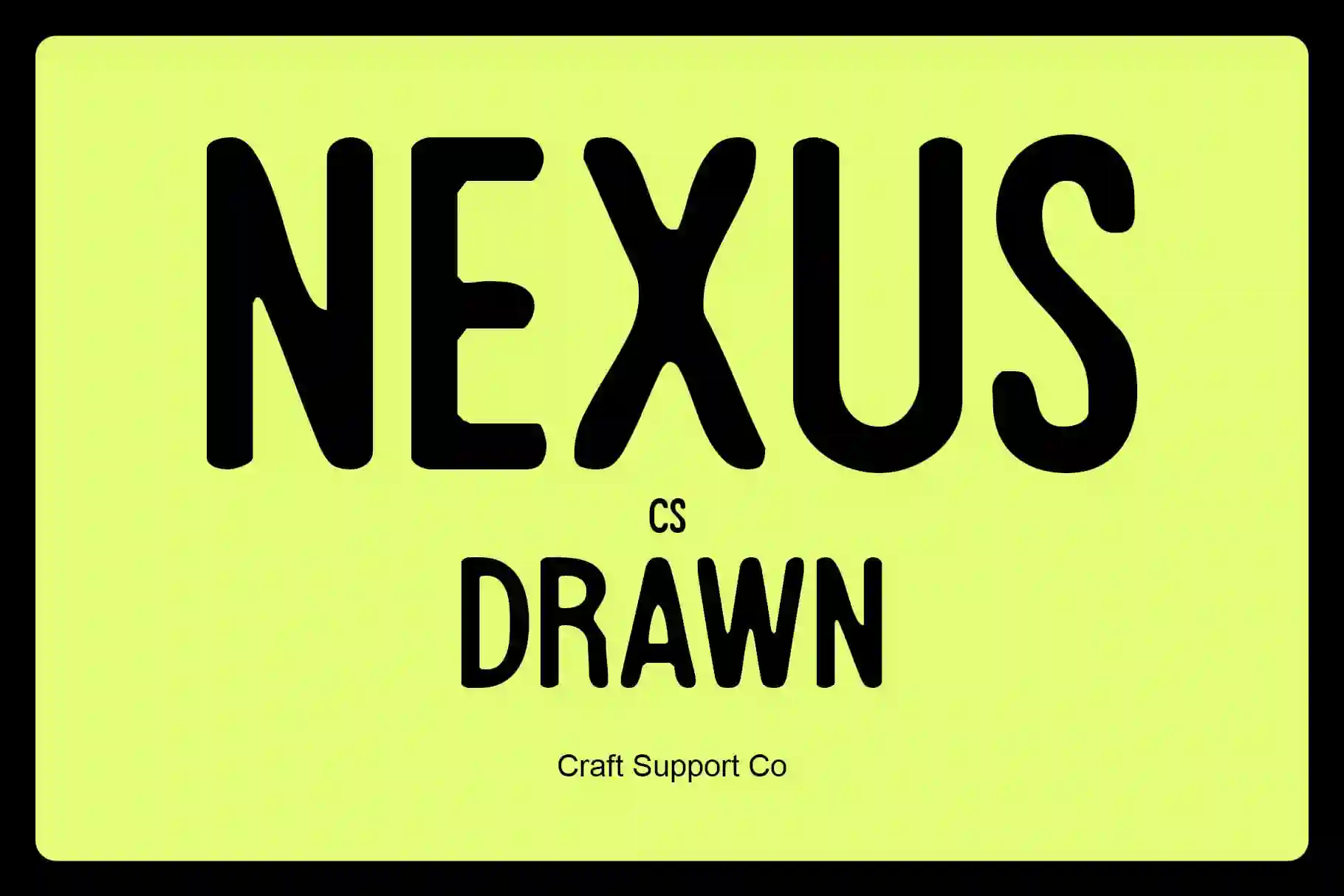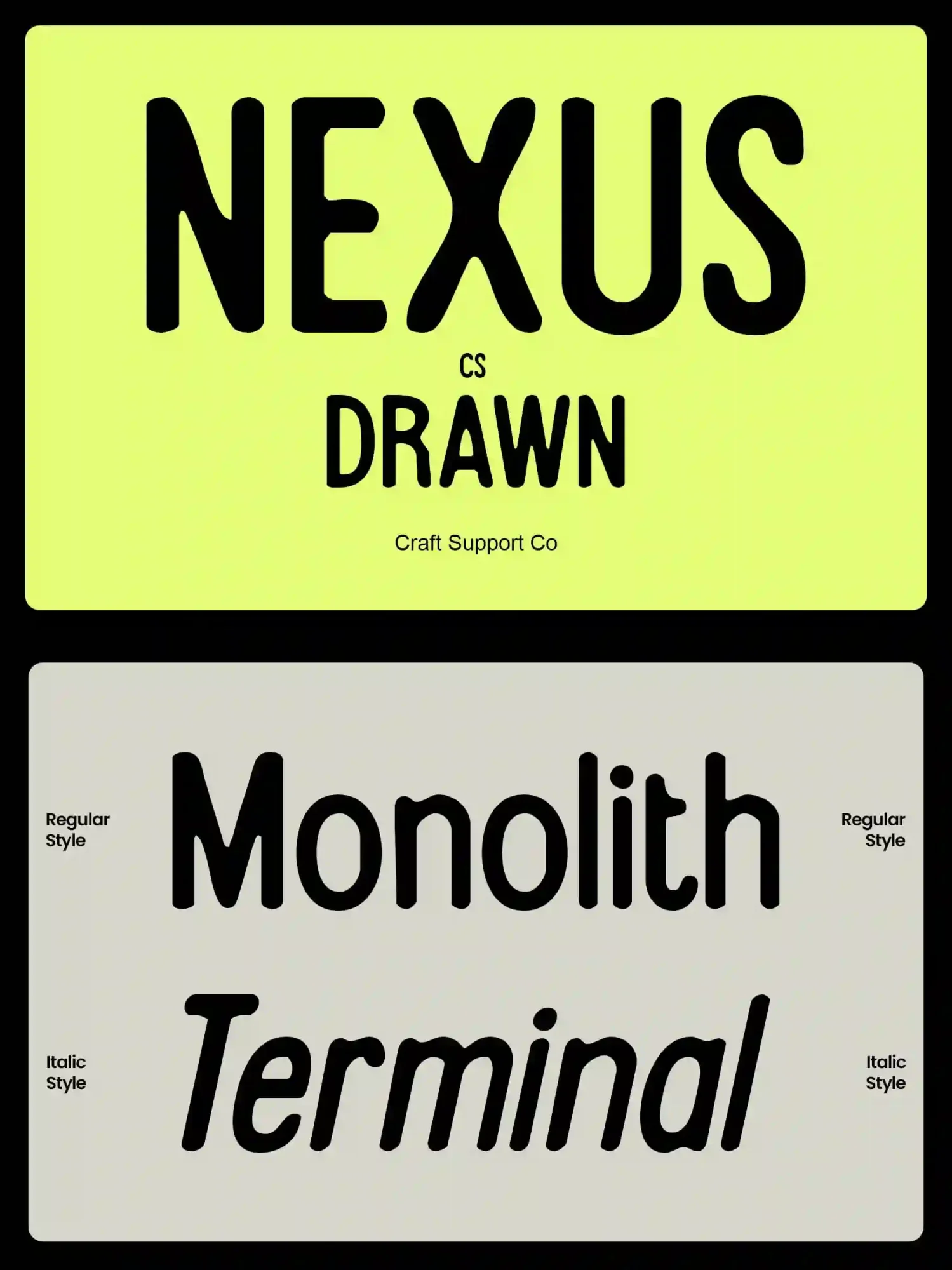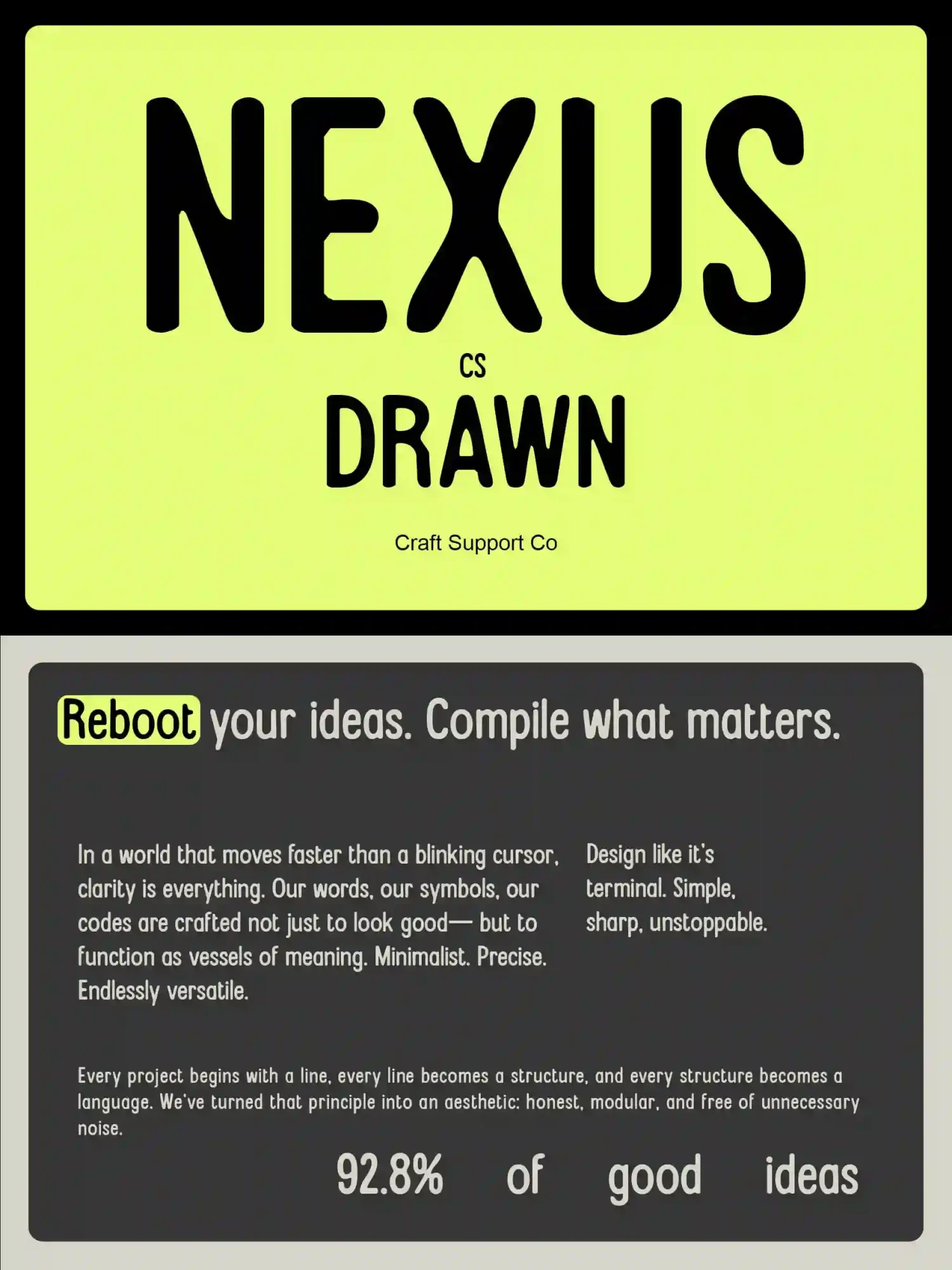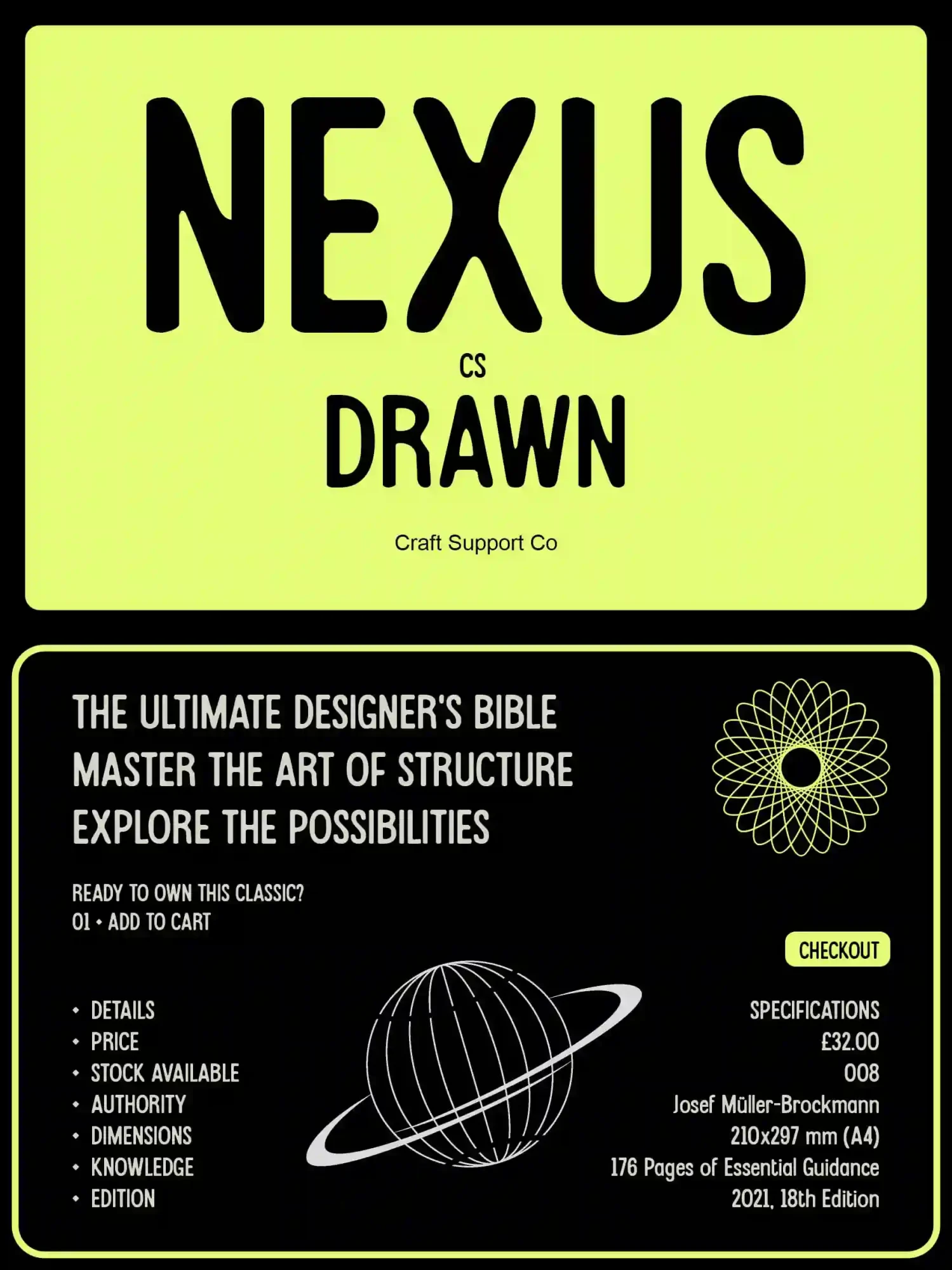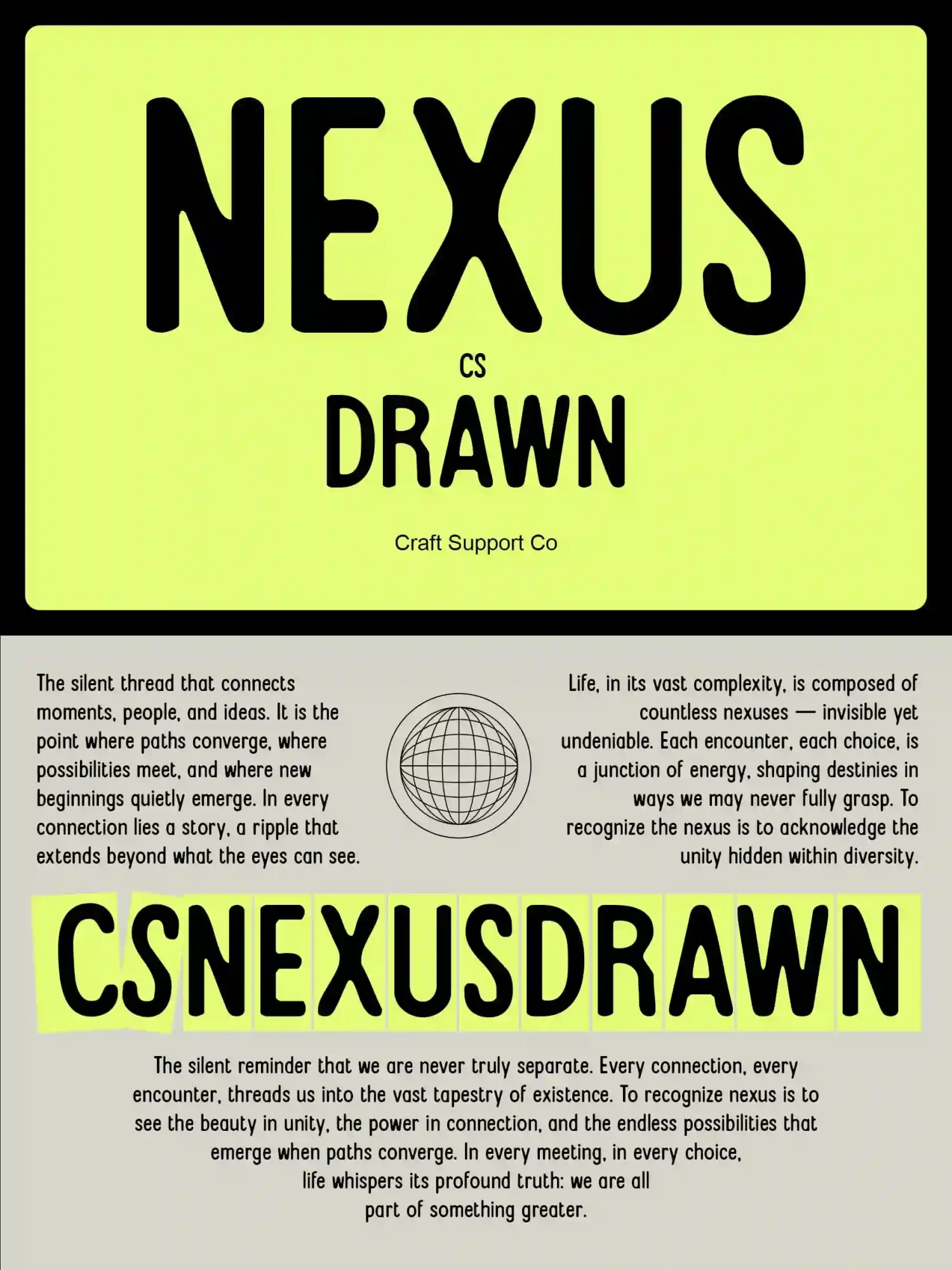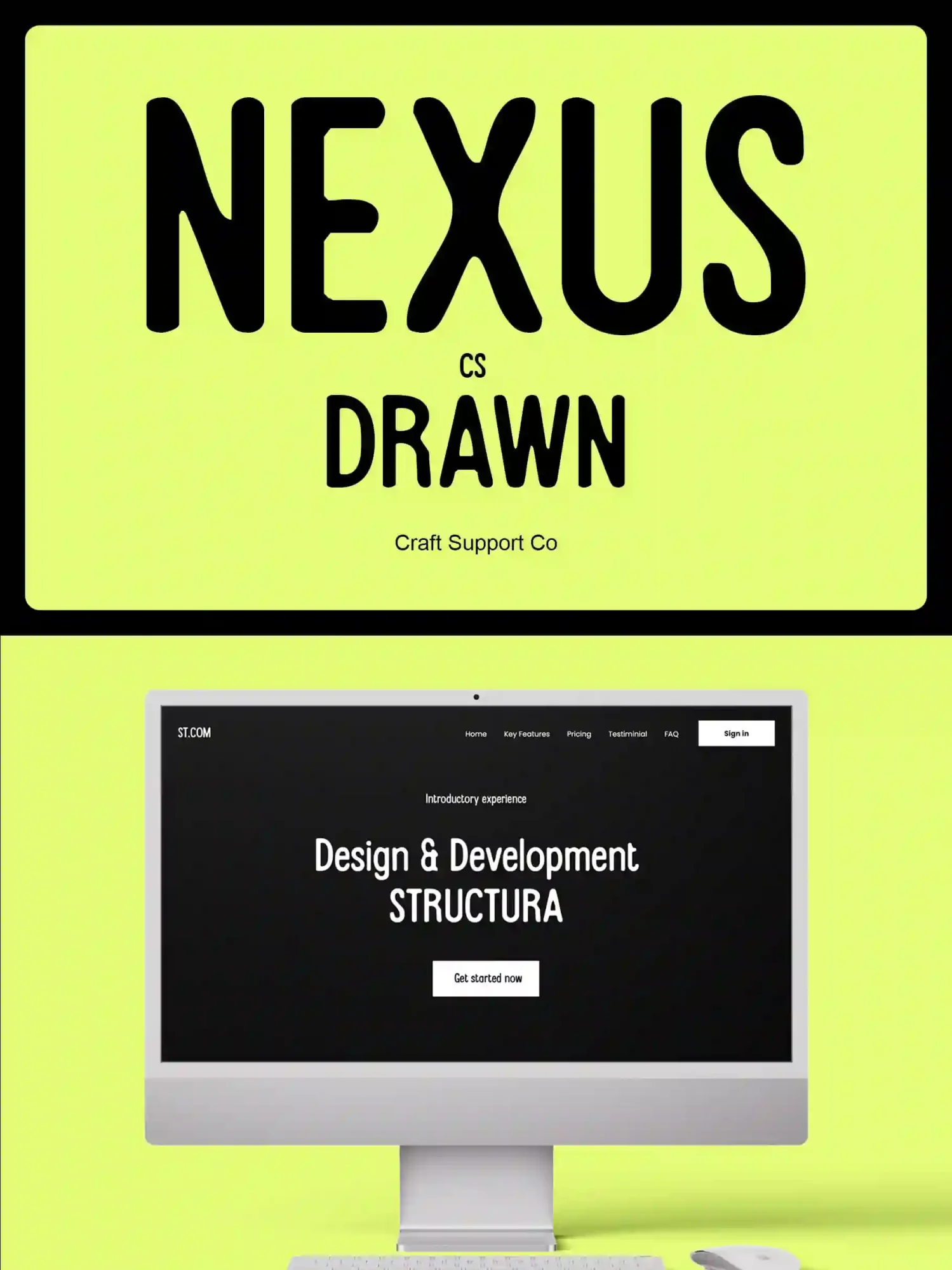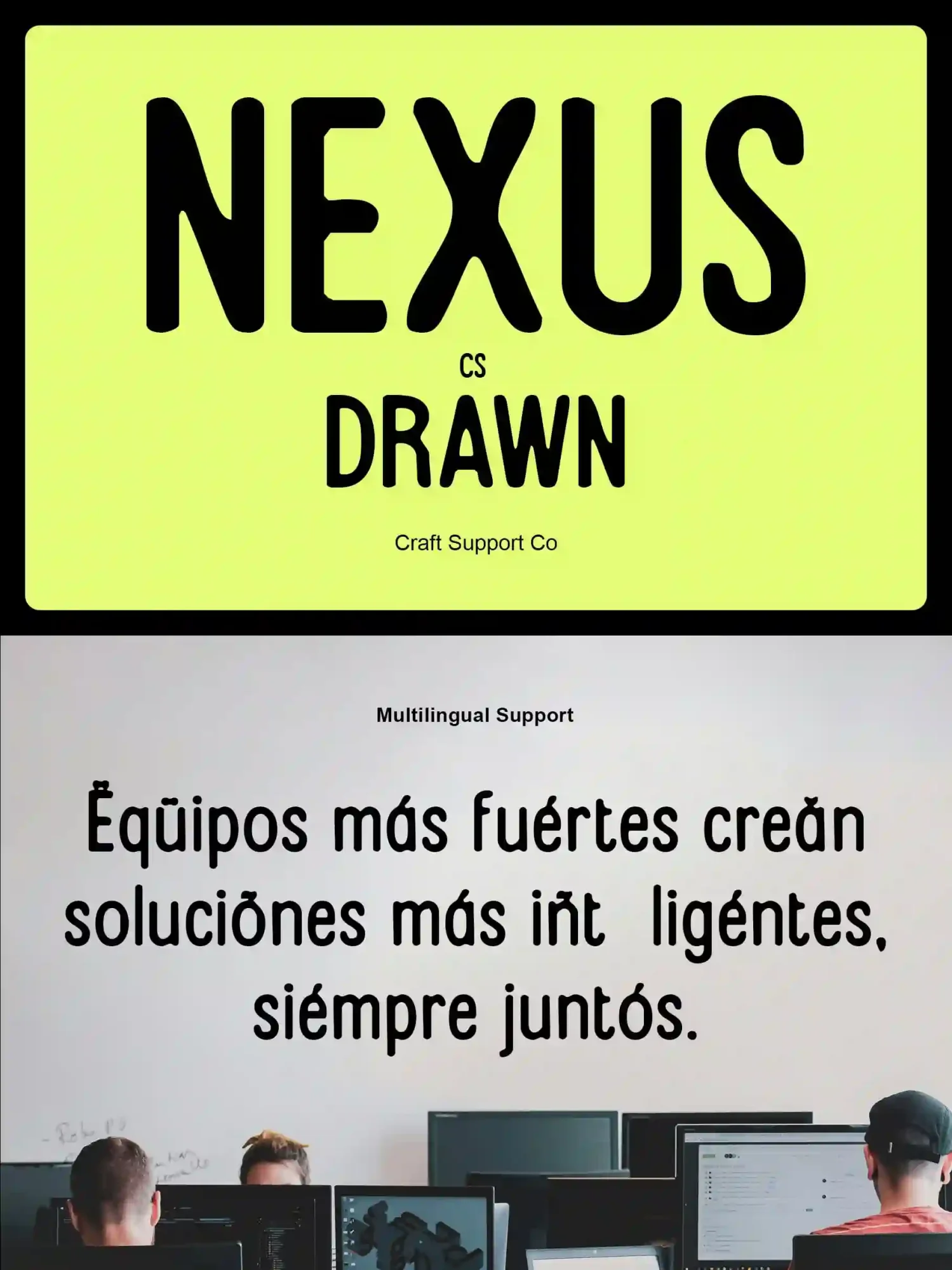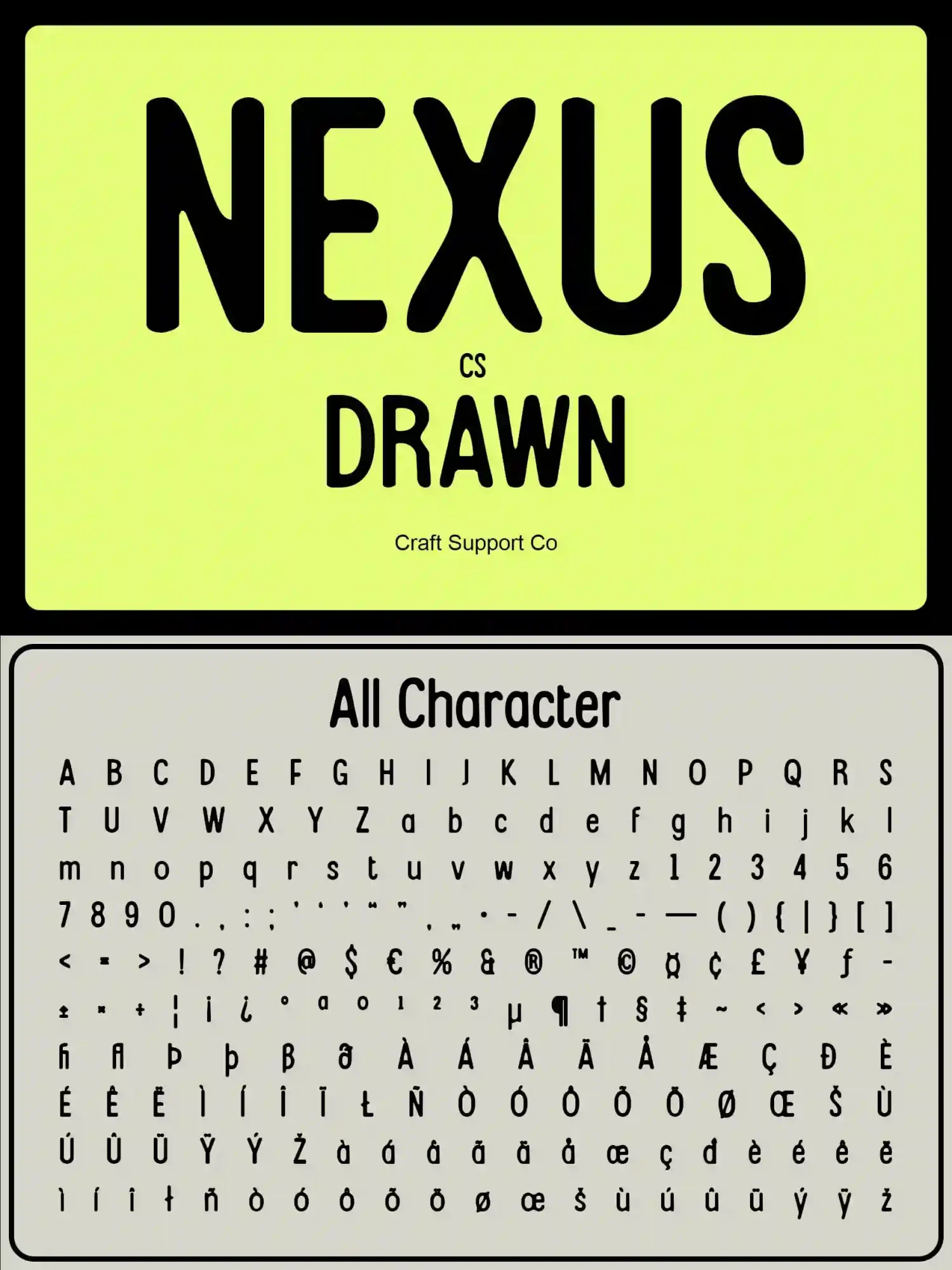
CS Nexus Drawn
CS Nexus Drawn – Condensed Sans Serif with Graceful Handmade Texture and Modern Condensed Display
Slim and Contemporary Form
Is a condensed modern font defined by its long, slim sans serif structure. Its elegant proportions bring a sense of sophistication, making it perfect for projects that demand both clarity and style. The condensed design ensures maximum impact while maintaining readability in tight spaces.
Hand-Drawn Texture with Personality
What sets apart is its drawn, handcrafted texture. This detail enriches the clean, modern form with subtle imperfections that add warmth and individuality. Each character feels alive, blending precision with artistry to create a font that’s both contemporary and expressive.